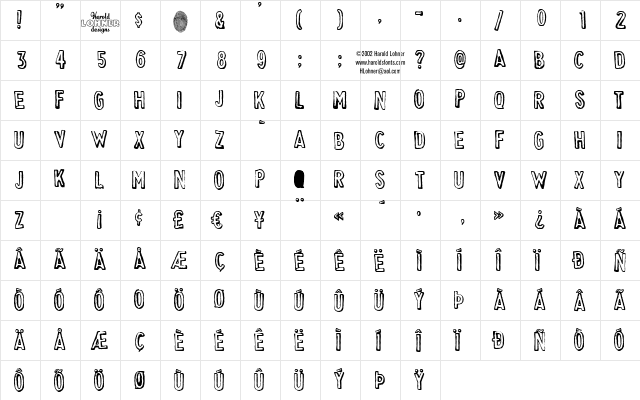
CheapskateOutline Regular
Design Context for CheapskateOutline Typeface
CheapskateOutline is built around its visual character rather than neutral utility — its distinctive forms are designed to make an impression at display sizes.
Font Pairing: Pair with a clean neutral sans-serif for body copy to let CheapskateOutline's character lead without overwhelming the composition.
Pro Tip: Use CheapskateOutline exclusively at display sizes — it was designed to be seen, not read at length. Let a neutral companion handle body copy.